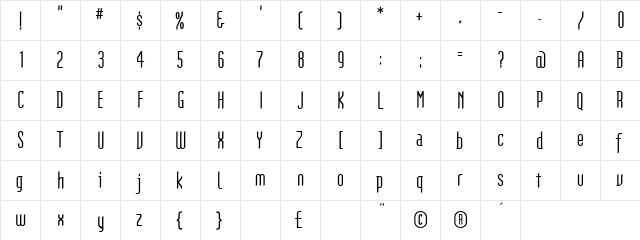
Gothikka Regular
Design Context for Gothikka Typeface
Gothikka offers clean, dependable letterforms without strong stylistic allegiance, making it a practical choice for designers who need flexibility.
Pro Tip: Use Gothikka in both headline and body roles to test its range before committing to a single application.